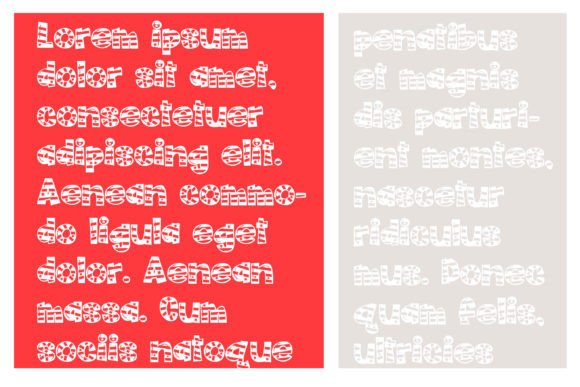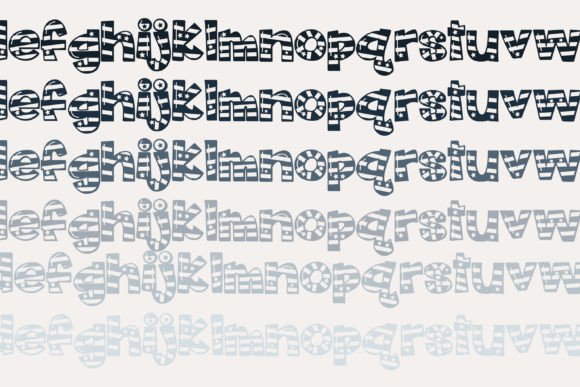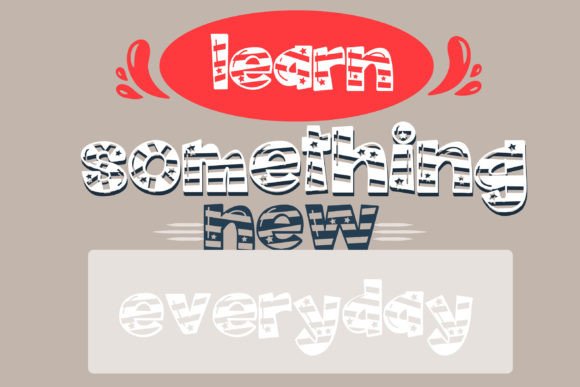
Introduction to Goblin Glory Font
This hand-crafted sans serif features stars and stripes.
A hand-crafted font is a font that is designed to look like it was written by hand It is often used for invitations, greeting cards, and other items.
Key Features of Goblin Glory Font
Why Choose Goblin Glory Font?
Goblin Glory Font offers exceptional quality and versatility, making it a valuable addition to your design toolkit. Whether you’re creating for personal projects or commercial use, Goblin Glory Font delivers professional results.